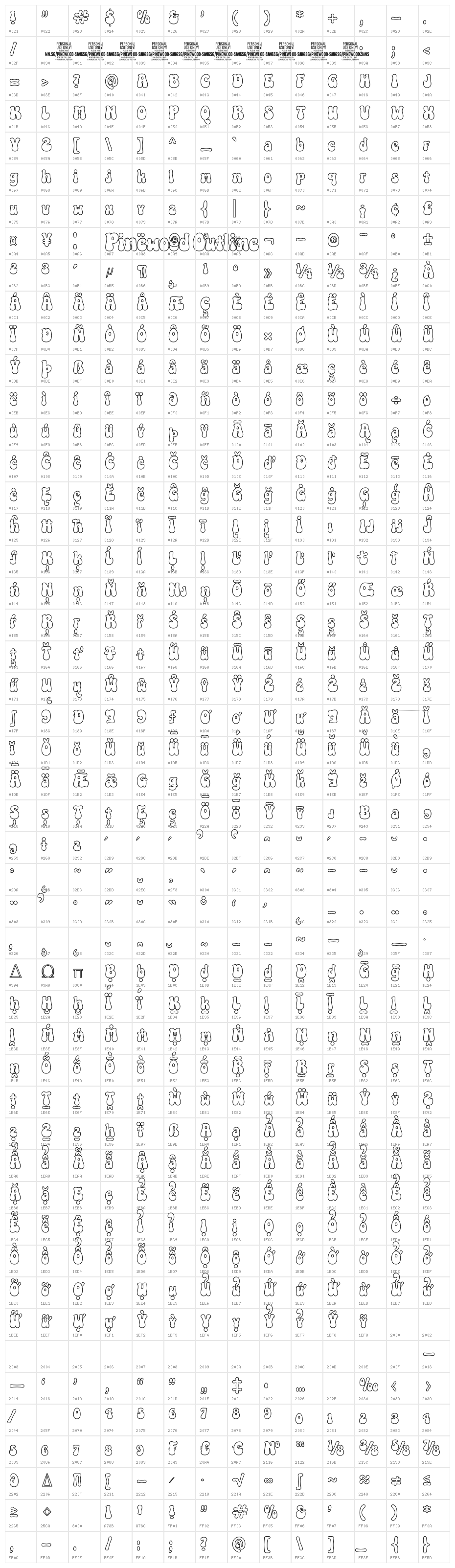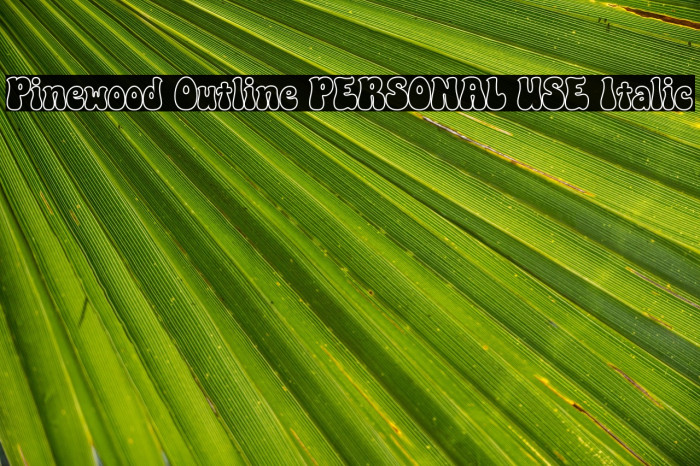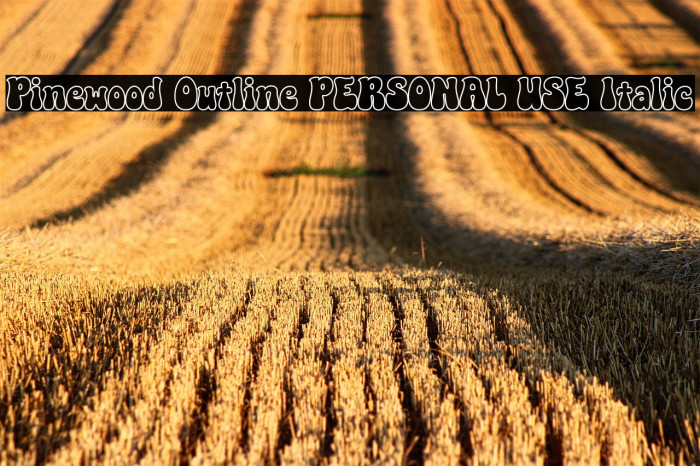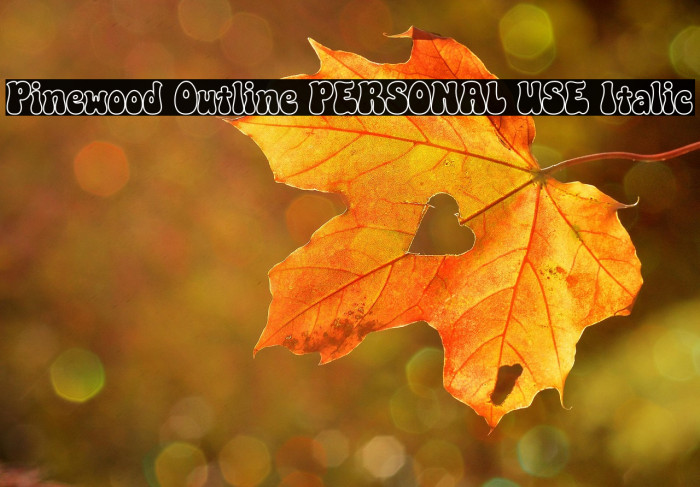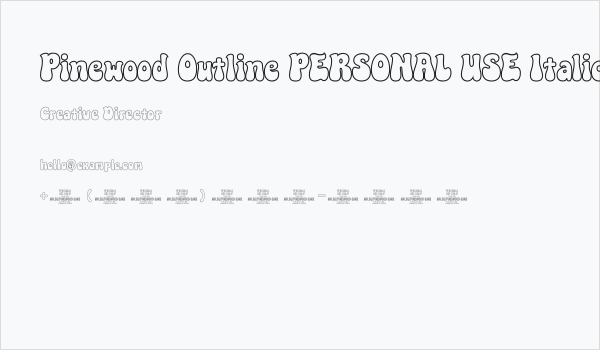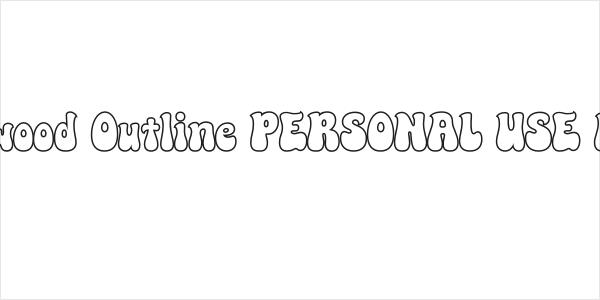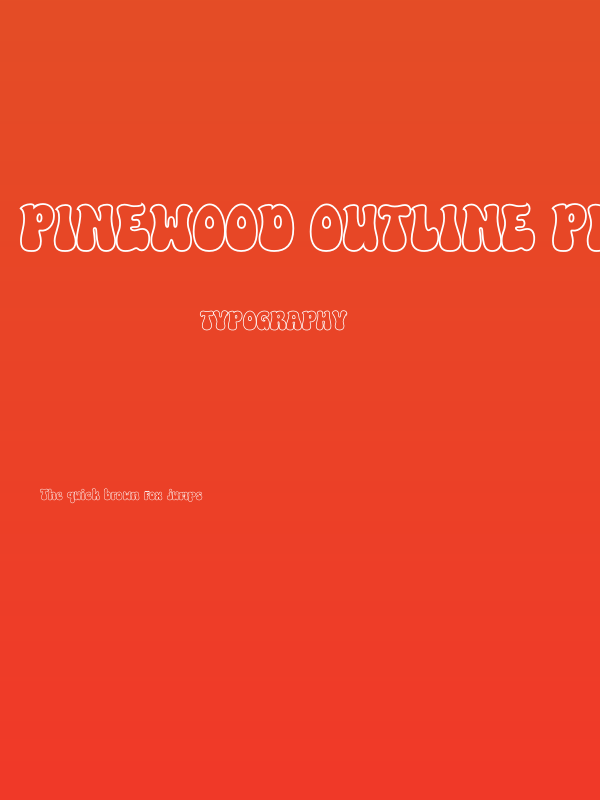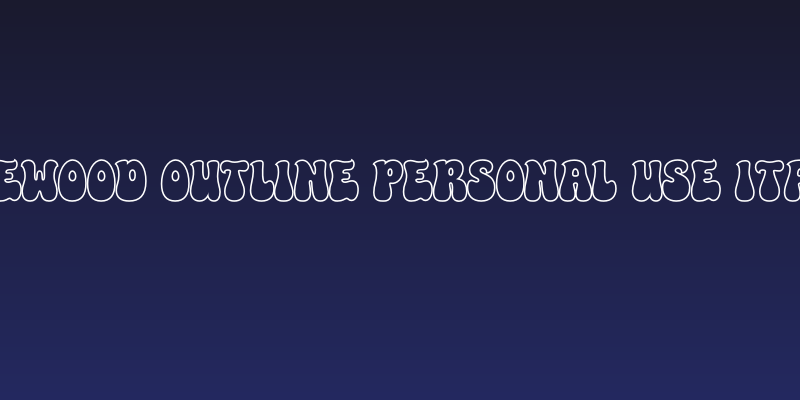
Pinewood Outline PERSONAL USE Italic Font
Pinewood Outline PERSONAL USE Italic Description
This font features a playful and bold outline style, characterized by its bubbly and rounded letterforms. The uppercase and lowercase letters maintain a consistent, whimsical appearance, with a slight slant that adds a dynamic feel. The numbers and special characters follow the same design principles, ensuring a cohesive look across all glyphs. The font's outline nature gives it a unique, eye-catching quality, making it ideal for creative and informal applications. Its thick strokes and generous spacing between characters enhance readability while maintaining its distinctive style.